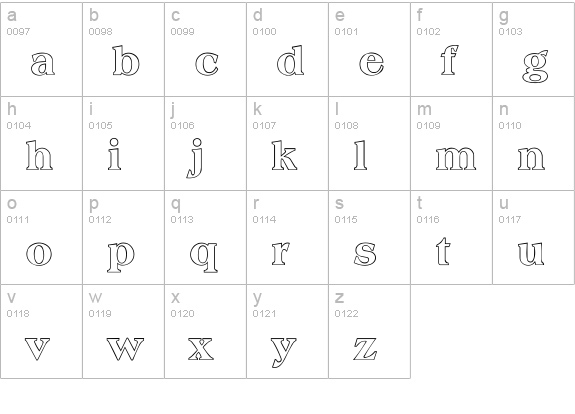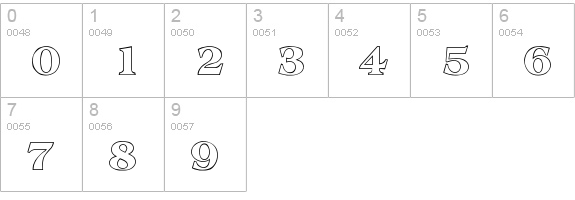
Amphion Outline Font Details
Amphion Outline font is a sleek and modern typeface that exudes elegance and sophistication. With its clean lines and geometric shapes, this font is perfect for creating eye-catching designs that demand attention. The outline style adds a unique touch to any project, making it stand out from the crowd. Best of all, the Amphion Outline font is available for free download at FontsMarket.com. Whether you're working on a branding project, creating a website, or designing promotional materials, this font is sure to elevate your work to the next level. Don't miss out on the opportunity to add this versatile and stylish font to your collection today!